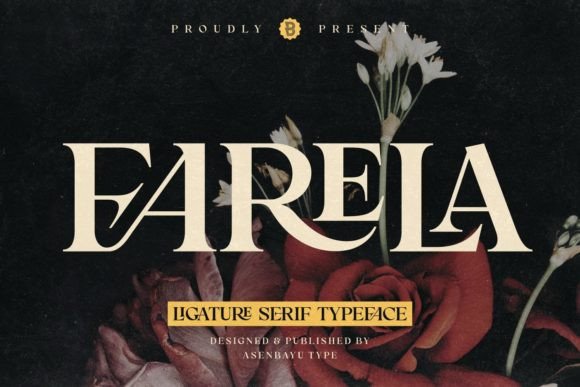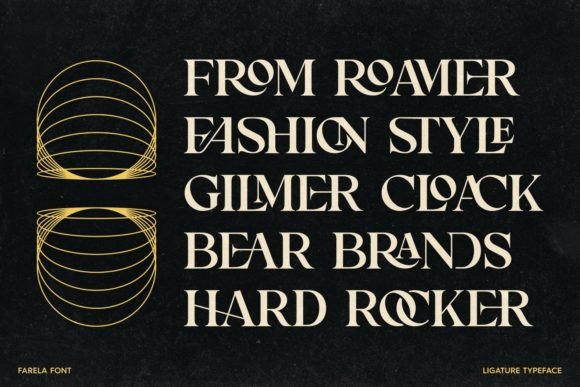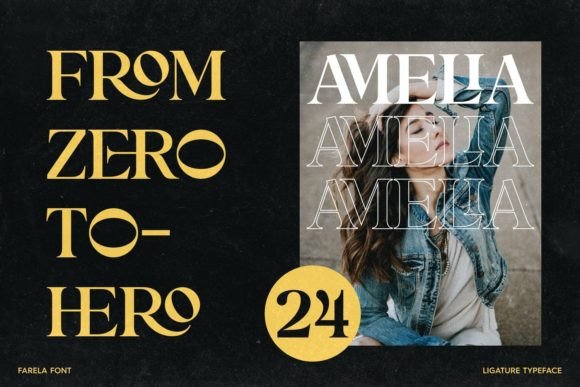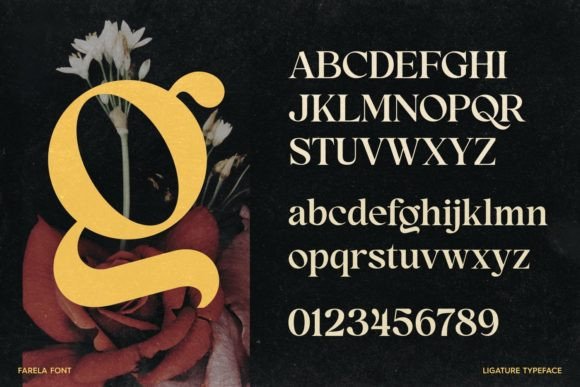
Farela Font: Elegant Ligature Serif for Vintage Logo Design
About the Farela Font
Unleash your creativity with Farela Font, a versatile font perfect for a wide range of applications. The Farela font is a serif ligature font that has an attractive elegant appearance. You can use this font in vintage, classic, and retro designs. This font gives a beautiful, classy and luxurious feel to your designs. It is perfect for projects such as logos, branding, fashion, magazines, labels, posters, album covers and many more.
Farela’s elegant serif design excels in headlines, short text blocks, and branding applications where a touch of vintage sophistication is desired. It works particularly well for luxury brands, fashion projects, and projects emphasizing heritage or classic style. Avoid using Farela for body text or extended paragraphs; its refined forms aren’t optimized for readability in large blocks.
Pairing Farela effectively requires considering its inherent elegance. A clean sans-serif like Lato or Open Sans provides a strong, modern counterpoint, enhancing readability in supporting text. For a more playful approach, a rounded sans-serif such as Montserrat can soften Farela’s formality. A script font could also work, but choose one with a similar level of refinement to avoid clashing.
Farela projects an air of sophisticated elegance and understated luxury. Its personality is best described as refined and timeless, making it suitable for brands aiming for a classic, high-end aesthetic.
Farela Font Usage Examples
Farela Font Example